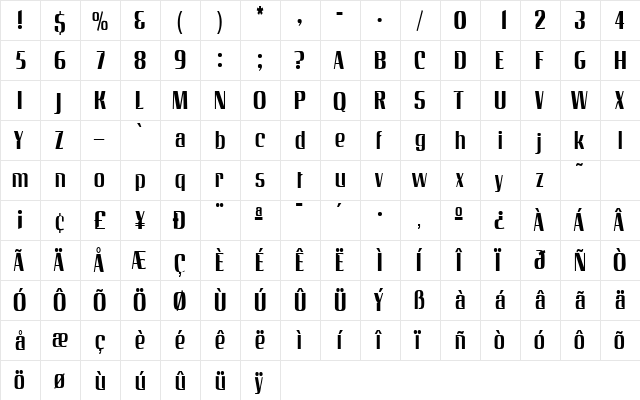
GalaxyCondensed Regular
Design Context for GalaxyCondensed Typeface
GalaxyCondensed takes a measured approach to typography — its balanced proportions and neutral character make it a reliable workhorse for both digital and print work. The condensed width makes it efficient for tight spaces without sacrificing legibility.